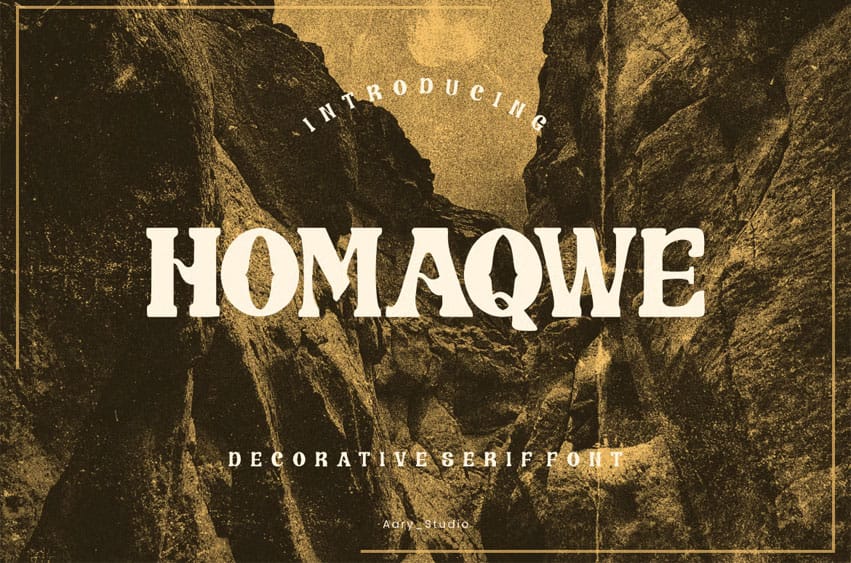
Homaqwe Font is elegant simple and modern Decorative font. The feel is elegant and beautiful.
This font brings you a beautiful and modern atmosphere. suitable for posters, book covers, cards, merchandise, etc.